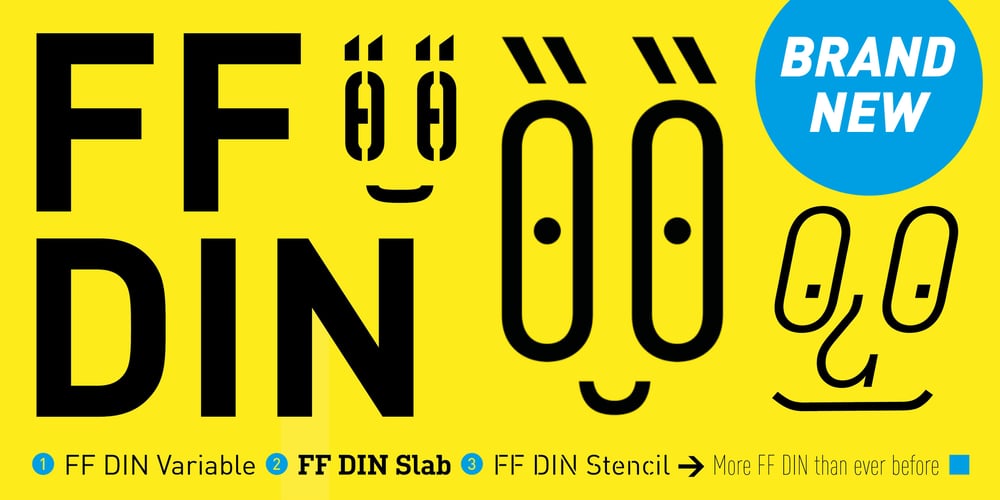
FF DIN Paneuropean Variable
FF DIN Paneuropean Variable font
FF DIN Paneuropean Variable Font Family was designed by Achaz Reuss, Albert-Jan Pool, Aleksei Chekulaev, Panos Haratzopoulos, Antonia Cornelius and published by FontFont. FF DIN Paneuropean Variable contains 2 styles and family package options. FF DIN: the famous, faithful and first revival of DIN 1451. FF DIN originates in the lettering models from the German standard DIN 1451, and is considered the perfect standard typeface due to methodical and engineered design. FF DIN Variable offers you more FF DIN than ever before. Pushing font technology to its limits, Variable fonts provide creatives a tool to dial in hyper specific variations which thrive in any design space. FF DIN Variable take bold steps in engineering, which the typefaces behaviour which brings in FF DIN’s technical look-and-feel into the smooth and almost organic world of Variable Fonts. Available in both upright and italic styles, there is a lot more FF DIN to discover with new era of type technology. FF DIN Italic is a sloped roman style, however it is optically corrected – slightly thinner, slightly narrower. As a result, FF DIN Italic stands out subtly. FF DIN Variable stays faithful to its parent’s DNA, the utmost care was taken to ensure that the new instances of FF DIN Variable remained consistent with all the well-known weights. Precision is the mantra of FF DIN, the FF DIN Variable is no exception to this design philosophy. Produce exquisitely fine-tuned typography and expressive animated headlines for any design. Infinite styles, intelligent, and powerful.